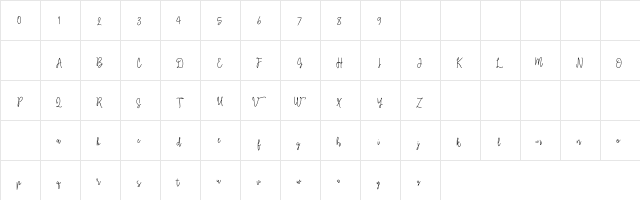
Moonlinetwo Regular
Design Context for Moonlinetwo Typeface
Moonlinetwo is a composed and adaptable typeface that performs quietly and consistently across a wide range of design contexts.
Pro Tip: Use Moonlinetwo in both headline and body roles to test its range before committing to a single application.